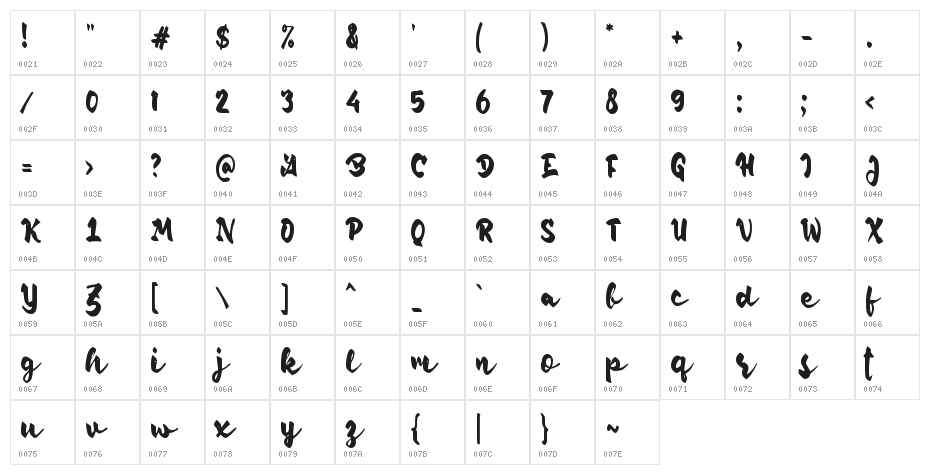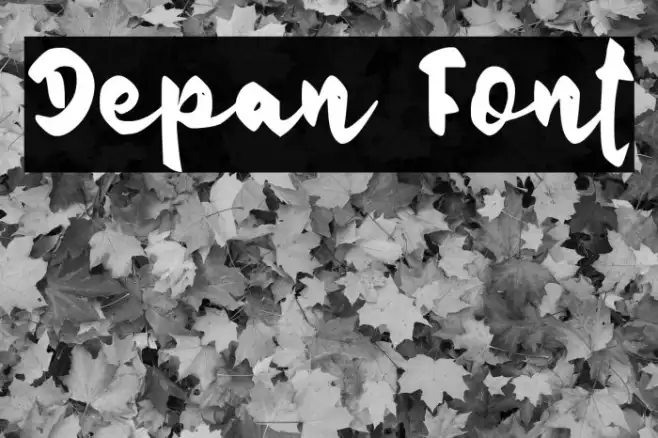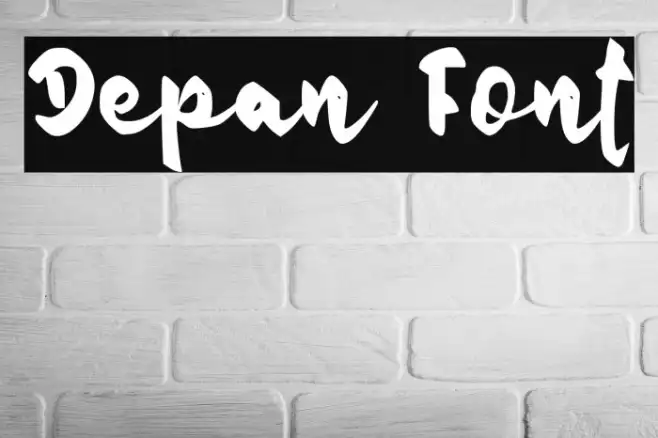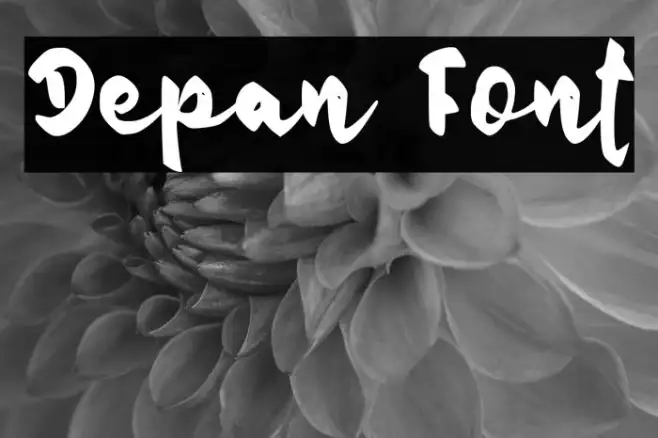
Depan Font
Depan Description
This font features a bold and expressive style with a handwritten appearance. The characters are crafted with a brush-like texture, giving them a dynamic and artistic flair. The uppercase letters are bold and slightly condensed, while the lowercase letters maintain a fluid and connected script style. The numbers and special characters follow the same expressive design, making them stand out with their unique curves and strokes. This font is ideal for projects that require a personal and creative touch, such as invitations, posters, or branding materials. Its playful yet sophisticated look can add a distinctive character to any design.
| Proposed Projects | Ideal for invitations, posters, branding materials, and creative projects. |